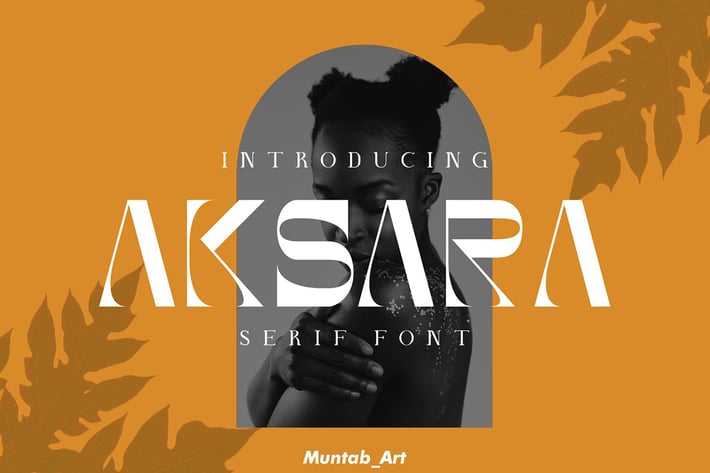
Akasara | Modern Serif font
Aksara fonts includes uppercase letters, numerals, a large range of punctuation. Serif font with modern style. Created for poster, web design, branding, illustrations, badges and some other works.